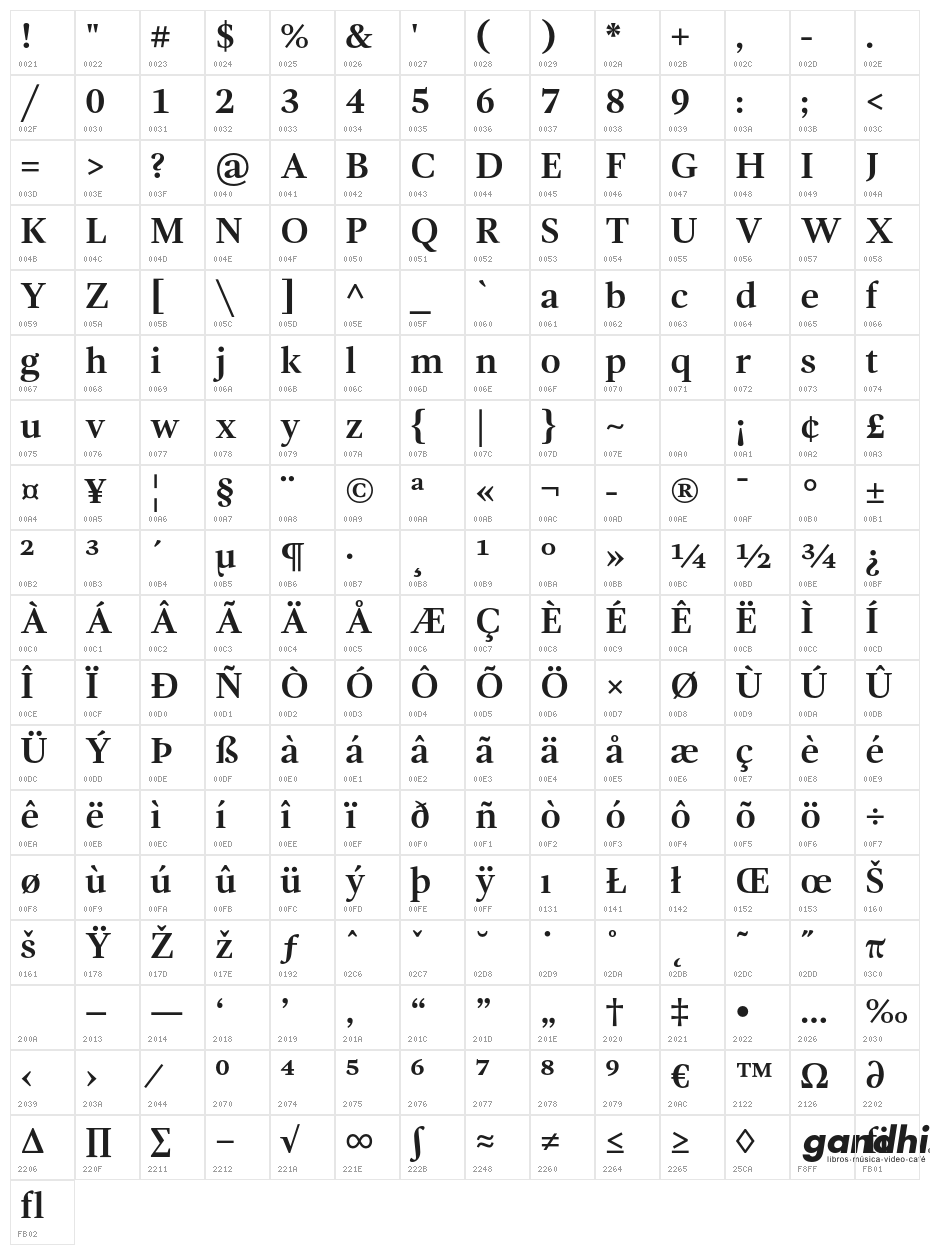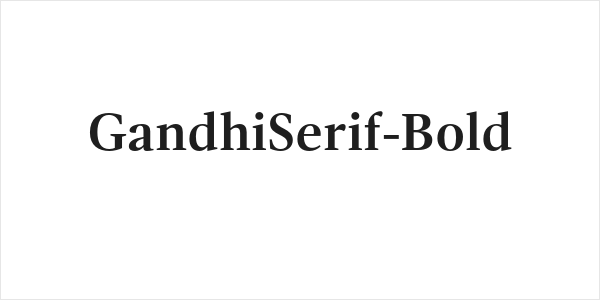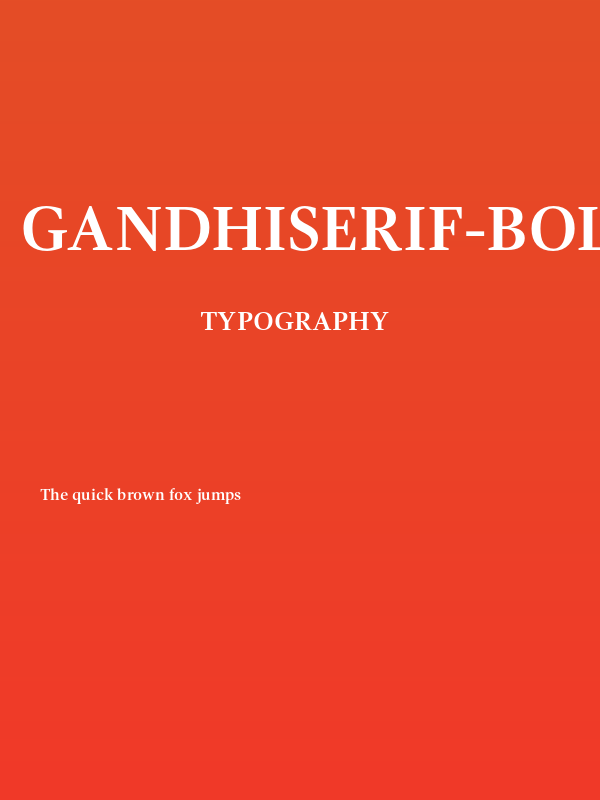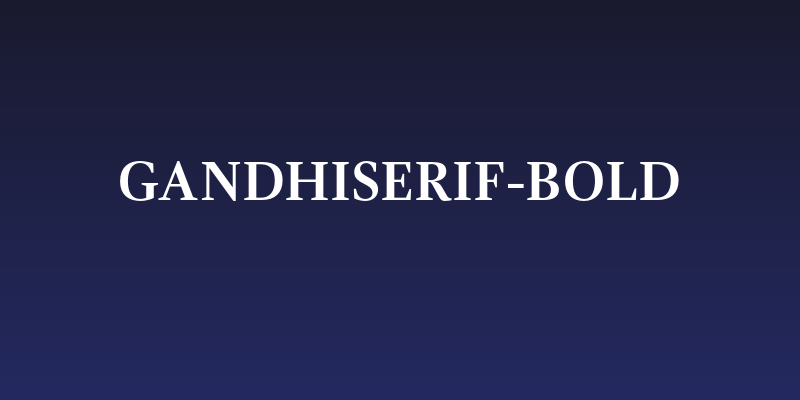
GandhiSerif-Bold Font
GandhiSerif-Bold Description
This serif font features a bold and authoritative presence, characterized by its strong, thick strokes and classic serif details. The uppercase letters exhibit a traditional elegance, with balanced proportions and a slight contrast in stroke width that enhances readability. The lowercase letters maintain a consistent style, with rounded curves and sharp serifs that add a touch of sophistication. The numerals are clear and distinct, making them suitable for both display and text settings. Special characters are well-integrated, ensuring versatility across various applications.
| Proposed Projects | Ideal for book covers, editorial design, branding, and formal invitations. |